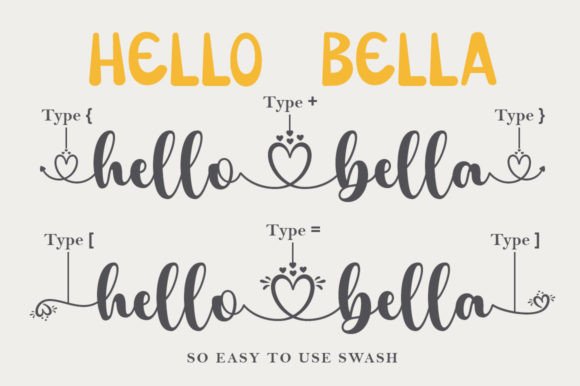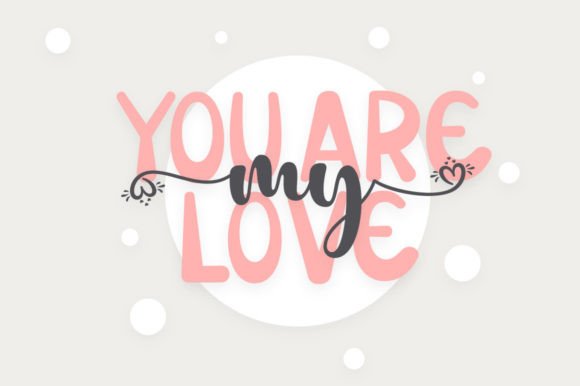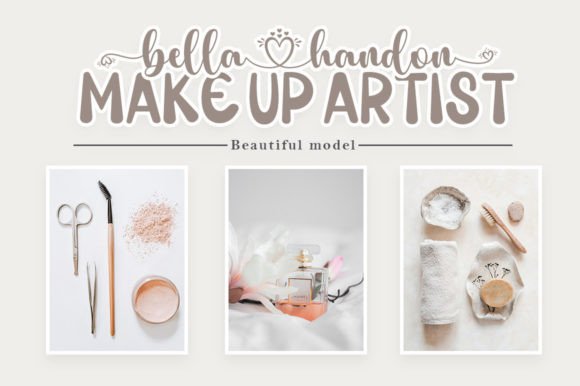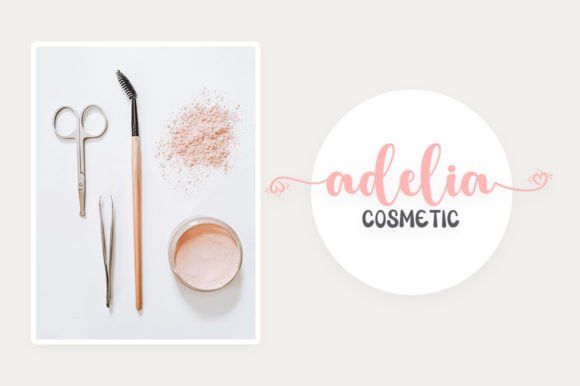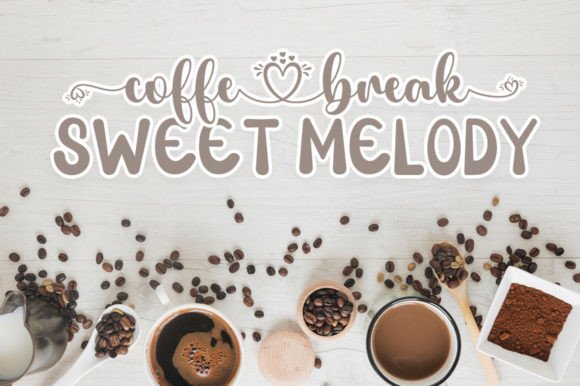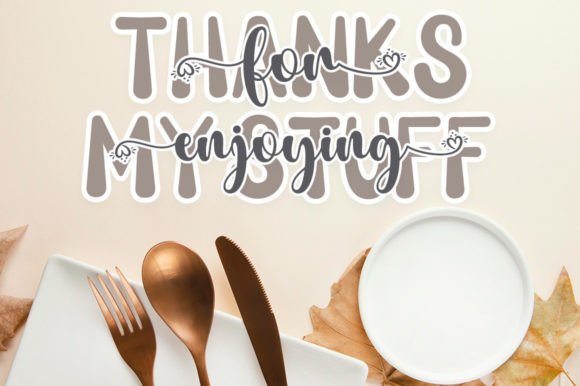
Introducing Hello Bella Duo Font: Elevate Your Designs with Elegance
In the world of typography, fonts play a crucial role in conveying the tone and aesthetic of a design. For designers, crafters, and creative enthusiasts, finding the perfect font can be a daunting task. However, if you’re looking for a stylish and delicate duo font that can add a romantic touch to your creations, look no further than Hello Bella Duo Font.
What is Hello Bella Duo Font?
Hello Bella Duo is a beautiful duo font that combines a script and sans serif font, making it suitable for a wide spectrum of applications. This versatile font can be used for various design projects, from greeting cards and invitations to headlines and branding materials. The duo font consists of two complementary fonts that work harmoniously together, providing a unique and stylish look.
Key Features of Hello Bella Duo Font
- Stylish and Delicate: Hello Bella Duo Font boasts a stylish and delicate appearance, perfect for adding a touch of elegance to your designs.
- Duo Font: The font comes with two complementary fonts – a script and a sans serif font – allowing you to mix and match to create stunning designs.
- PUA Encoded: Hello Bella Duo Font is PUA (Private Use Area) encoded, making it easy to access all glyphs and swashes. This feature ensures that you can effortlessly navigate the font and create beautiful designs.
- Romantic Touch: The font’s elegant design guarantees a romantic touch to each of your creations, making it perfect for wedding-related designs, Valentine’s Day cards, and more.
Uses of Hello Bella Duo Font
Hello Bella Duo Font is an incredibly versatile font that can be used for a wide range of design projects, including:
- Greeting Cards: Add a personal touch to your greeting cards with the elegant script font, perfect for special occasions like weddings, anniversaries, and birthdays.
- Headlines and Titles: Use the sans serif font to create stunning headlines and titles for your blog posts, articles, and social media graphics.
- Branding and Packaging: Incorporate Hello Bella Duo Font into your branding materials, such as logos, labels, and packaging, to give your products a touch of sophistication.
- Invitations and Stationery: Create beautiful invitations, stationery, and wedding materials with the romantic and elegant design of Hello Bella Duo Font.
Tips for Using Hello Bella Duo Font
To get the most out of Hello Bella Duo Font, here are some tips:
- Experiment with Font Pairings: Try pairing the script and sans serif fonts in different ways to create unique and interesting designs.
- Play with Swashes and Glyphs: Take advantage of the PUA encoding and experiment with different swashes and glyphs to add a personal touch to your designs.
- Use for Display and Body Text: Use the sans serif font for body text and the script font for display purposes, such as headlines and titles.
Hello Bella Duo Font is a stunning duo font that can elevate your designs with its elegant and delicate appearance. With its versatility, PUA encoding, and romantic touch, this font is perfect for designers, crafters, and creative enthusiasts looking to add a touch of sophistication to their creations. Whether you’re designing greeting cards, headlines, or branding materials, Hello Bella Duo Font is sure to become a go-to font in your collection.